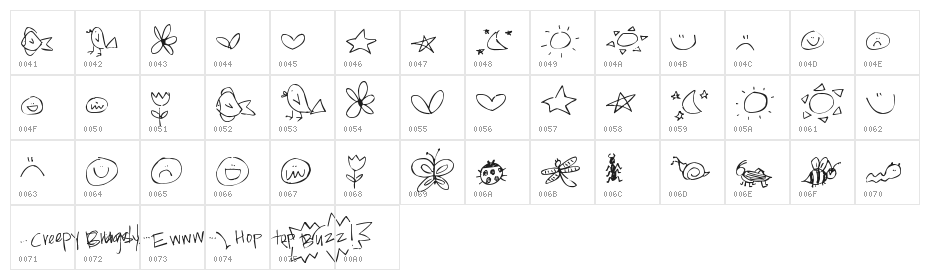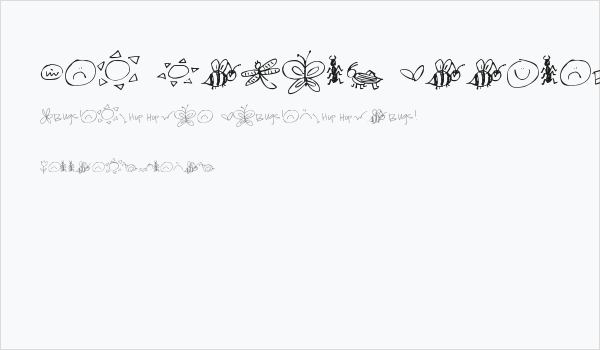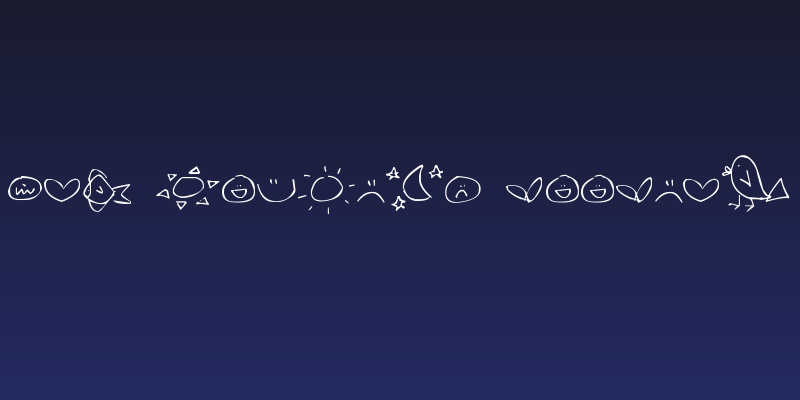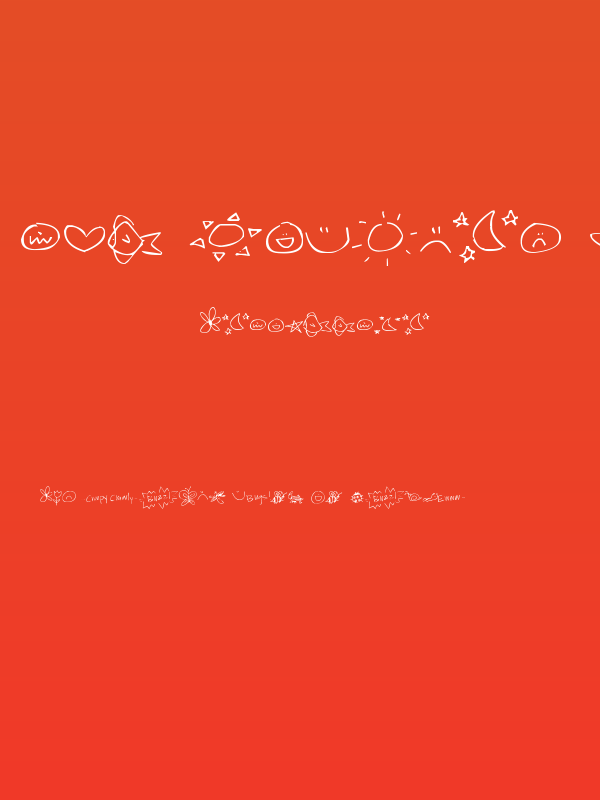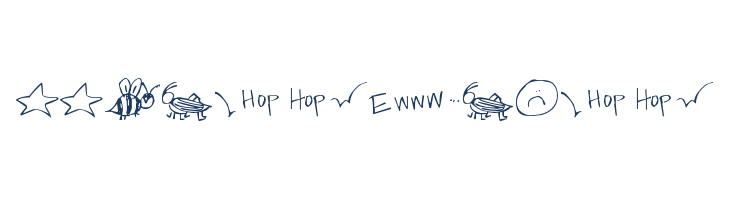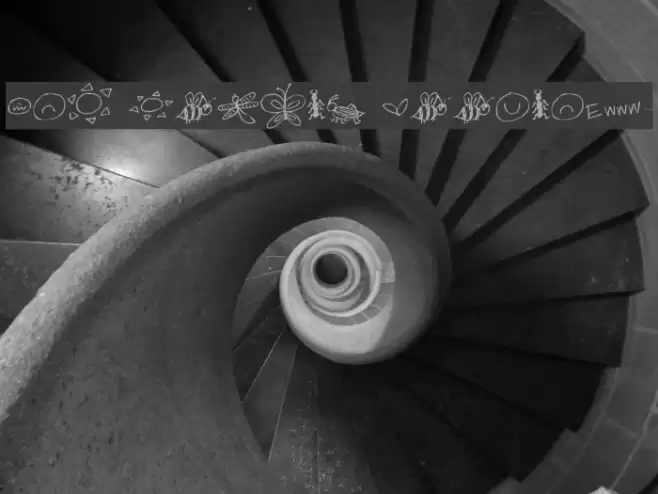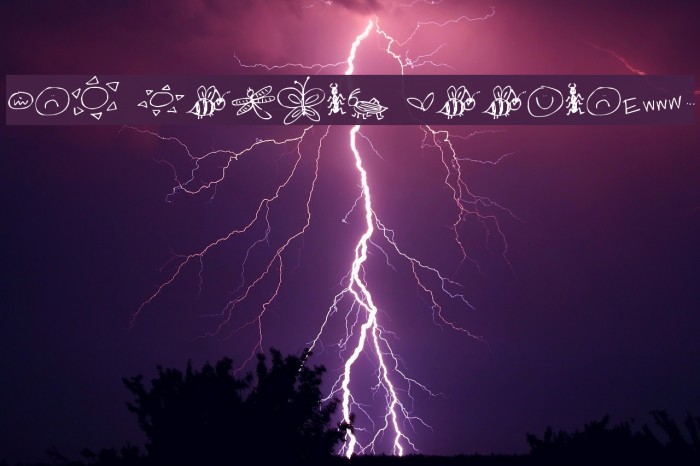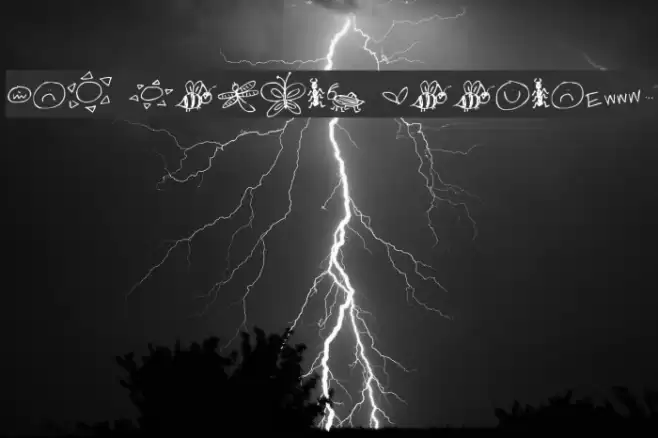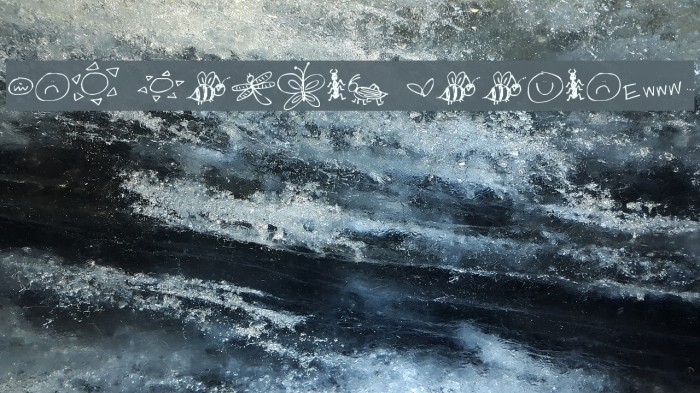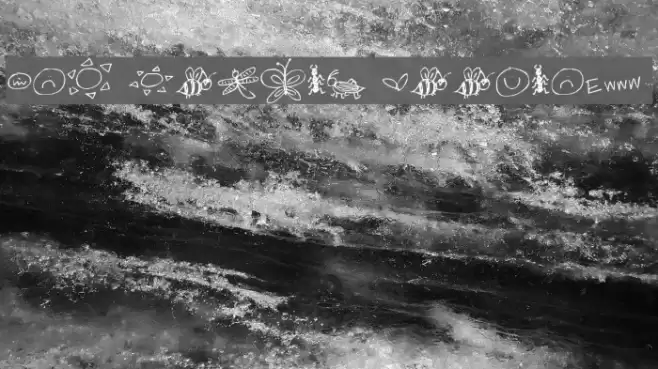
Pea Jokilyn Doodles Font
Pea Jokilyn Doodles Description
This is a playful and whimsical doodle font featuring a variety of hand-drawn elements such as stars, hearts, flowers, and smiley faces. The characters are designed with a casual, sketch-like quality, giving them a fun and informal appearance. The font includes a mix of simple line drawings and more detailed illustrations, such as insects and celestial symbols. It captures a sense of childlike creativity and spontaneity, making it ideal for projects that require a touch of humor and lightheartedness. The strokes are uneven, adding to the hand-drawn feel, and the overall design is lively and engaging.
| Use Case | Logos, Headlines, Creative projects |
| Proposed Projects | Ideal for children's books, playful invitations, greeting cards, and creative social media graphics. |